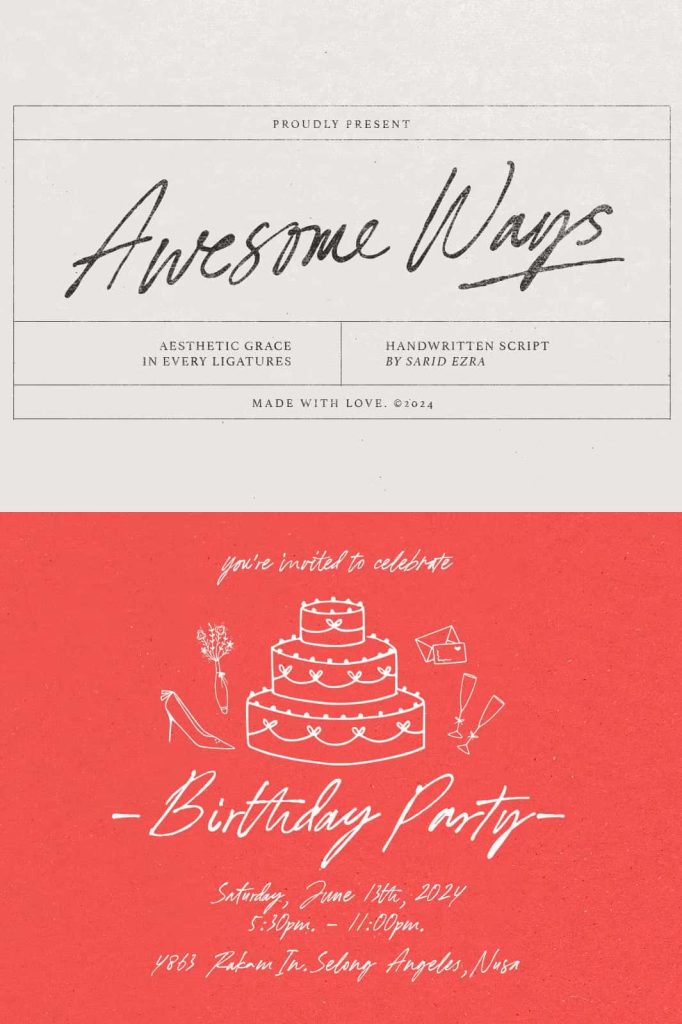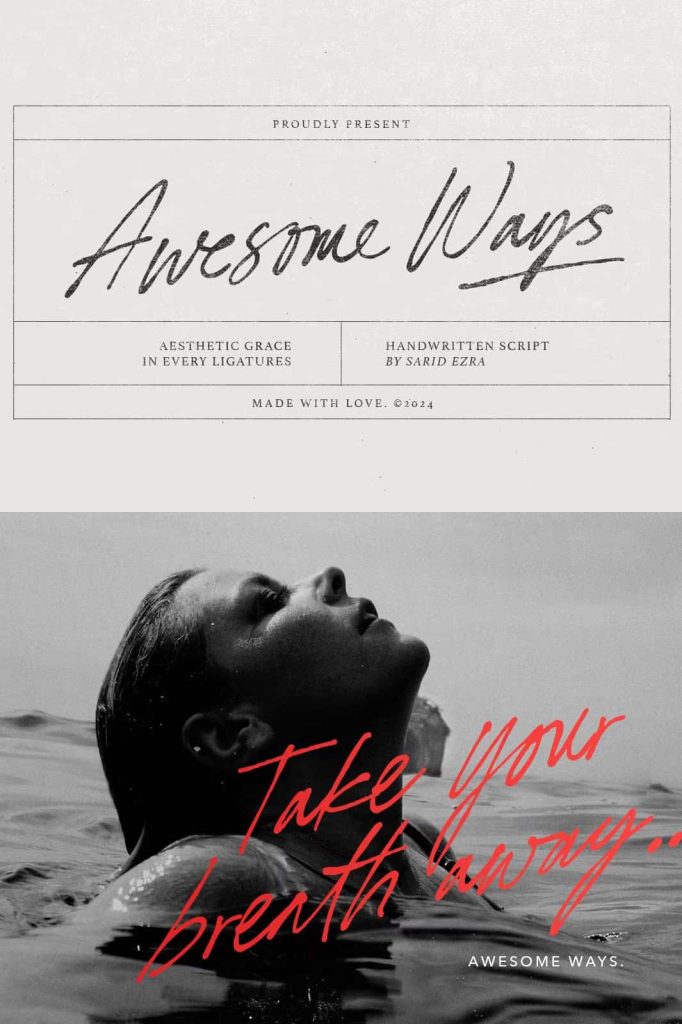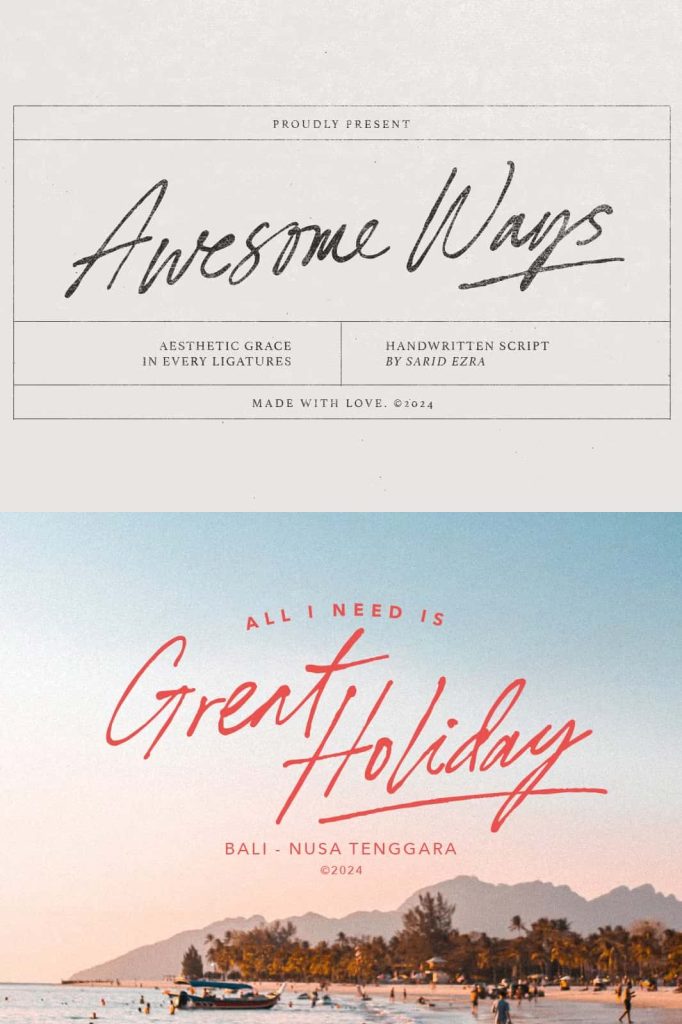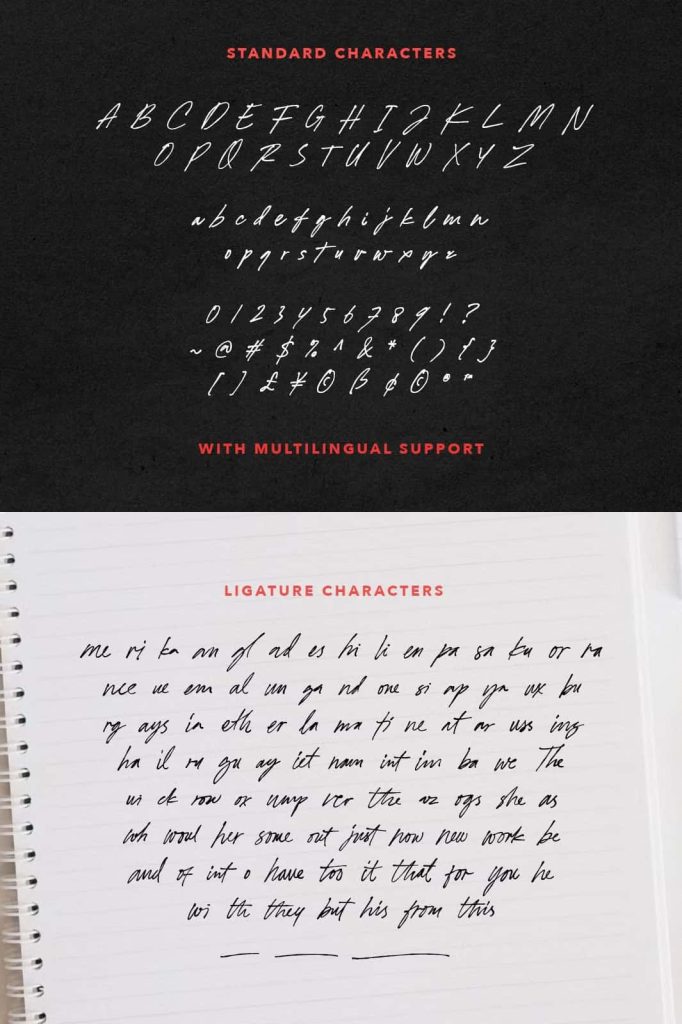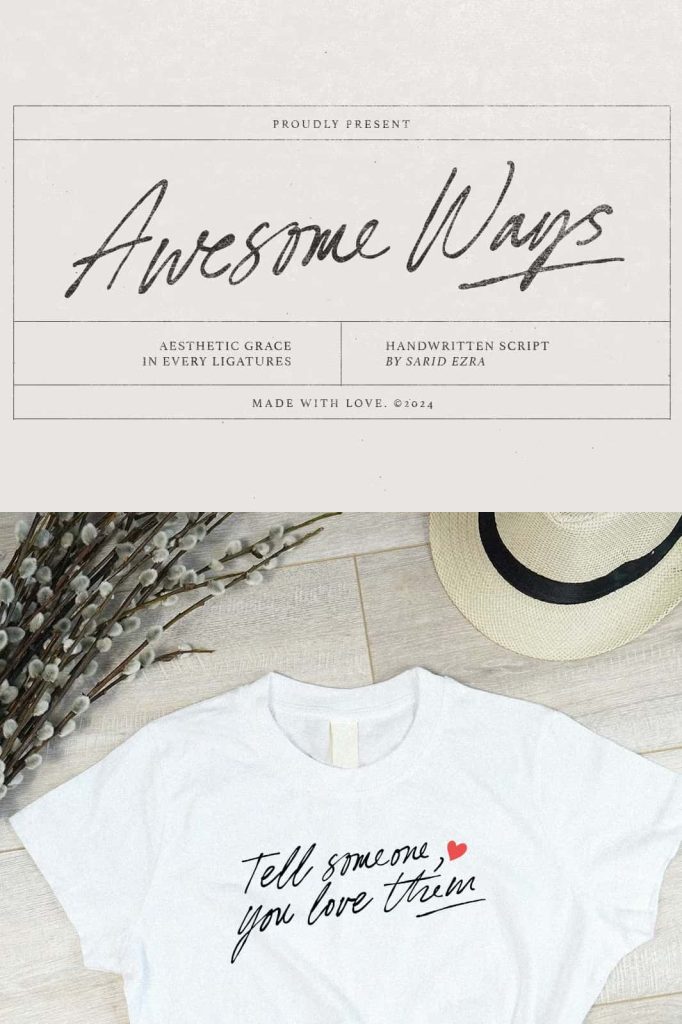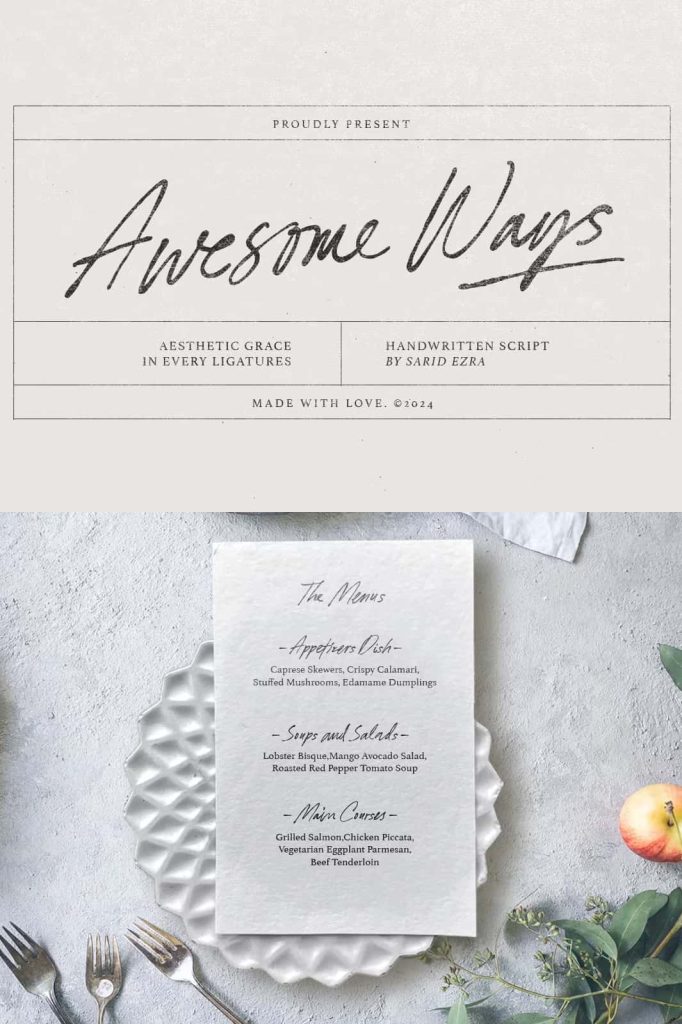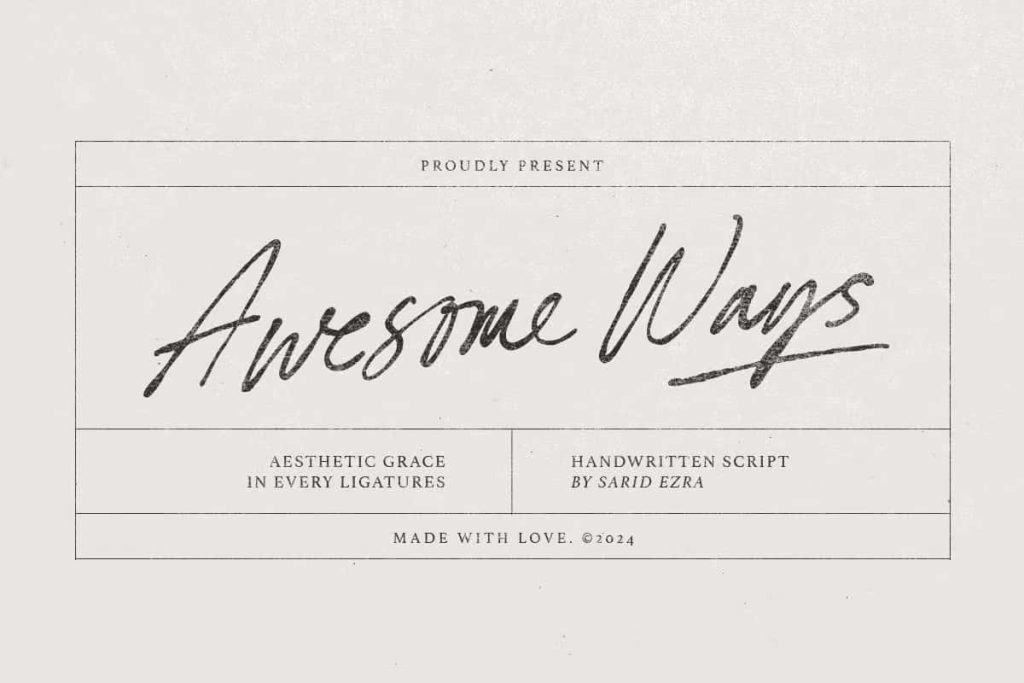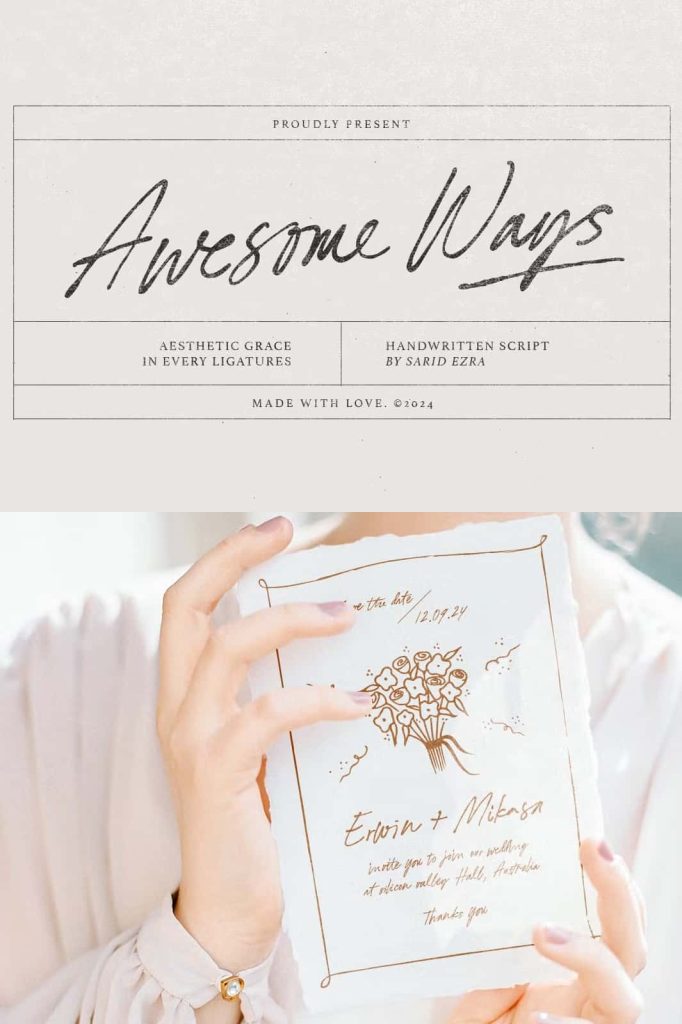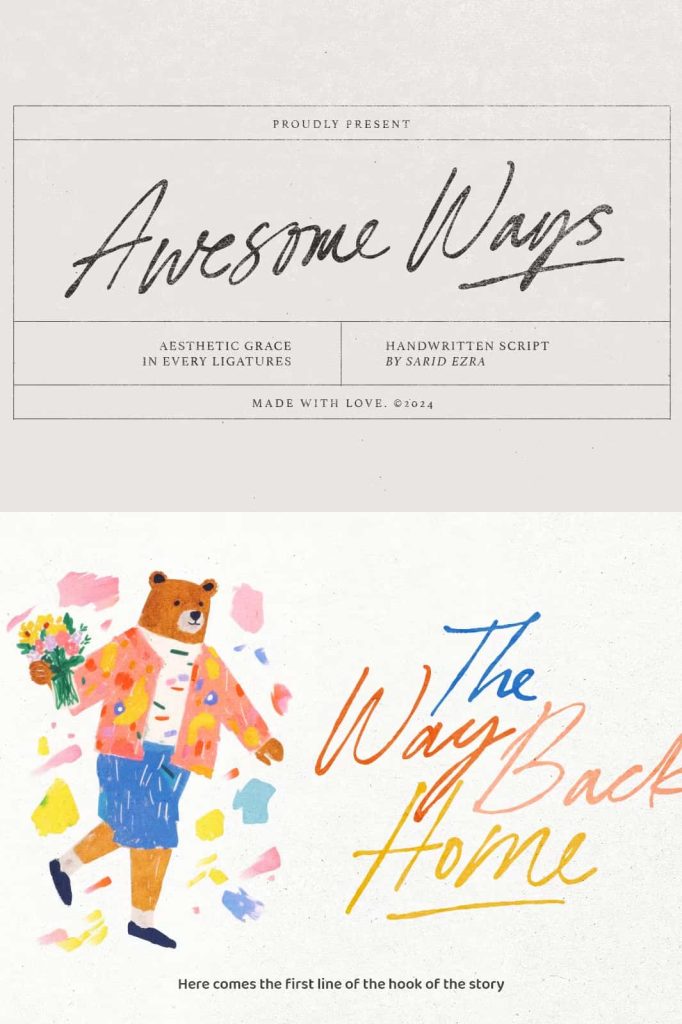
Awesome Ways Handwritten Script Font – A Natural and Elegant Typeface for Creative Designs
Awesome Ways is a beautifully crafted handwritten script font designed to bring authenticity, warmth, and personality to your creative projects. Featuring smooth handwritten strokes and a large collection of stylish ligatures, this font creates typography that feels natural, expressive, and genuinely handcrafted. Every letter flows effortlessly into the next, allowing designers to achieve elegant and realistic handwritten text with minimal effort.
Whether you are creating a memorable brand identity, designing product labels, producing inspirational quote graphics, or crafting wedding invitations, Awesome Ways delivers the perfect balance of creativity and readability. Its organic appearance helps projects feel more personal and engaging while maintaining a professional and polished finish.
With multilingual support and versatile design capabilities, Awesome Ways adapts seamlessly to a wide range of print and digital applications. This flexibility makes it an excellent choice for designers, entrepreneurs, content creators, and businesses seeking typography that communicates authenticity and style.
A Handwritten Script Font with Authentic Character
Awesome Ways captures the beauty of genuine handwriting through carefully designed letterforms that mimic the natural movement of pen strokes. Unlike rigid digital fonts, this script typeface embraces the subtle variations found in handwritten text, creating a warm and inviting visual experience.
Its flowing style helps establish a stronger emotional connection with audiences by adding a human touch to every design. The smooth curves and balanced proportions make the font highly readable while preserving the elegance and charm of handcrafted typography.
This combination of authenticity and functionality makes Awesome Ways suitable for both personal and professional design projects. Whether used in large display settings or smaller text applications, the font consistently delivers a natural and visually appealing result.
Beautiful Ligatures for Smooth and Natural Typography
One of the standout features of Awesome Ways is its extensive collection of ligatures. These specially designed character combinations automatically connect letters in a natural and visually pleasing way, enhancing the overall flow of the text.
Ligatures play an important role in creating realistic handwritten typography because they eliminate awkward spacing and improve the visual harmony between characters. As a result, words appear smoother, more fluid, and closer to authentic handwriting.
Designers can use these built-in ligatures to create sophisticated typography without spending time manually adjusting letter combinations. This feature helps maintain consistency while adding elegance and personality to every project.
Key Features of Awesome Ways
- Natural handwritten script style
- Beautiful and extensive ligature collection
- Smooth flowing letter connections
- Elegant and authentic appearance
- Highly readable character design
- Multilingual language support
- Suitable for both print and digital projects
Perfect for Logo and Branding Design
Typography plays a critical role in building memorable brands, and Awesome Ways offers a distinctive visual personality that helps businesses stand out. Its handwritten style creates an approachable and authentic image, making brands feel more personal and relatable.
The font works exceptionally well for logo design, personal branding, boutique businesses, creative agencies, beauty products, fashion brands, handmade goods, and artisan businesses. Its elegant script style communicates creativity and professionalism while adding a unique handcrafted touch.
Designers can use Awesome Ways to create eye-catching logos, brand signatures, taglines, and visual identities that leave a lasting impression on customers.
Create Stunning Labels and Product Packaging
Product packaging often serves as the first interaction between a brand and its customers. Awesome Ways helps products stand out by adding warmth, sophistication, and visual appeal to labels and packaging designs.
The font’s natural handwritten style works beautifully for handmade products, specialty foods, cosmetics, candles, craft goods, beverages, and boutique collections. Its authentic appearance helps communicate quality and craftsmanship, encouraging stronger customer engagement.
Whether used as the primary display font or as an accent element within packaging layouts, Awesome Ways enhances product presentation and strengthens brand identity.
Ideal for Handwritten Quotes and Typography Art
Inspirational quotes and typography-based artwork require fonts that convey emotion and personality. Awesome Ways excels in these applications by transforming simple words into expressive visual compositions.
Its flowing script style adds elegance and movement to motivational messages, social media graphics, wall art, and promotional content. The natural appearance of the font helps quotes feel more genuine and impactful, increasing their ability to connect with audiences.
If you are looking for a handwritten script font that delivers elegance, authenticity, and functionality, Awesome Ways is an excellent choice. Its timeless style and versatile design make it a valuable addition to any font collection, providing endless possibilities for creative expression and professional visual communication.